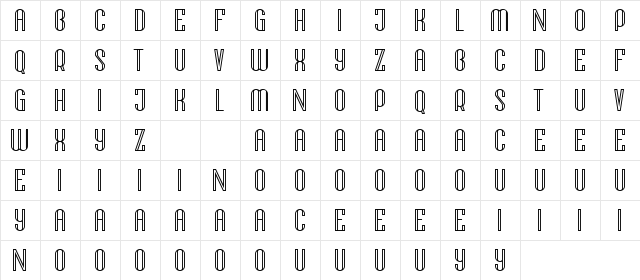
Climbup Demo Inline Regular
Design Context for Climbup Demo Inline Typeface
Climbup Demo Inline is built around its visual character rather than neutral utility — its distinctive forms are designed to make an impression at display sizes.
Font Pairing: Pair with a clean neutral sans-serif for body copy to let Climbup Demo Inline's character lead without overwhelming the composition.
Pro Tip: Treat Climbup Demo Inline as the centrepiece of your typographic hierarchy. One strong heading set in a decorative face can carry an entire layout.